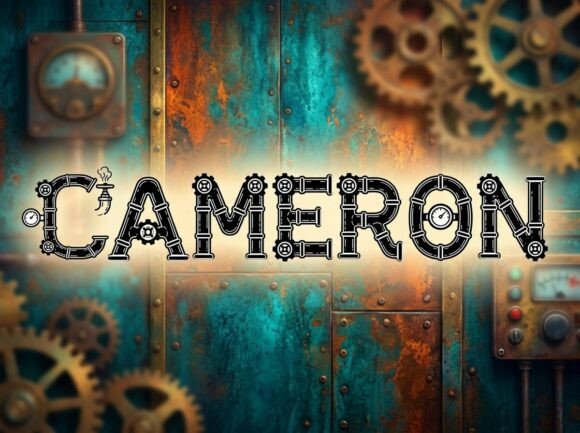
The Industrial Charm of Cameron Font: A Designer’s Dream
I still remember the design project that led me to discover Cameron Font. I was working on a branding project for a craft brewery, and I needed a font that would capture the essence of their industrial-chic aesthetic. After hours of searching, I stumbled upon Cameron, and it was love at first sight. The rugged, mechanical letterforms seemed to leap off the screen, exuding a sense of nostalgia and sophistication. In this article, I’ll share my experience with Cameron Font, its features, and how to make the most of it in your designs.
What I Love About Cameron Font
- ✨ High-detail display font with a unique industrial aesthetic
- ✅ Ingenious “mechanical” letterforms constructed from weathered pipes, rotating gears, and vintage pressure gauges
- ✅ Perfect for craft brewery branding, boutique escape room identities, steampunk-themed event posters, and cinematic “industrial-vintage” digital headers
- ✅ Supports OpenType features, glyphs, and stylistic alternates
While Cameron Font is an amazing addition to any design project, there are a few things to keep in mind: 🤔
- ⚠️ The font’s intricate details can be challenging to read at smaller sizes
- ⚠️ Some characters may require manual kerning for optimal spacing
The Story Behind Cameron Font
Cameron Font was designed with the industrial age in mind. The creator, a fan of steampunk and industrial design, wanted to craft a font that would capture the essence of a bygone era. Inspired by weathered pipes, rotating gears, and vintage pressure gauges, Cameron Font was born. The result is a unique and captivating font that’s perfect for designers looking to add a touch of industrial charm to their projects.
Q: What is Cameron Font best suited for?
A: Cameron Font is ideal for craft brewery branding, boutique escape room identities, steampunk-themed event posters, and cinematic “industrial-vintage” digital headers.
Q: Is Cameron Font available in different weights or styles?
A: Currently, Cameron Font is available in a single weight. However, the font’s OpenType features and glyphs provide flexibility and versatility in design.